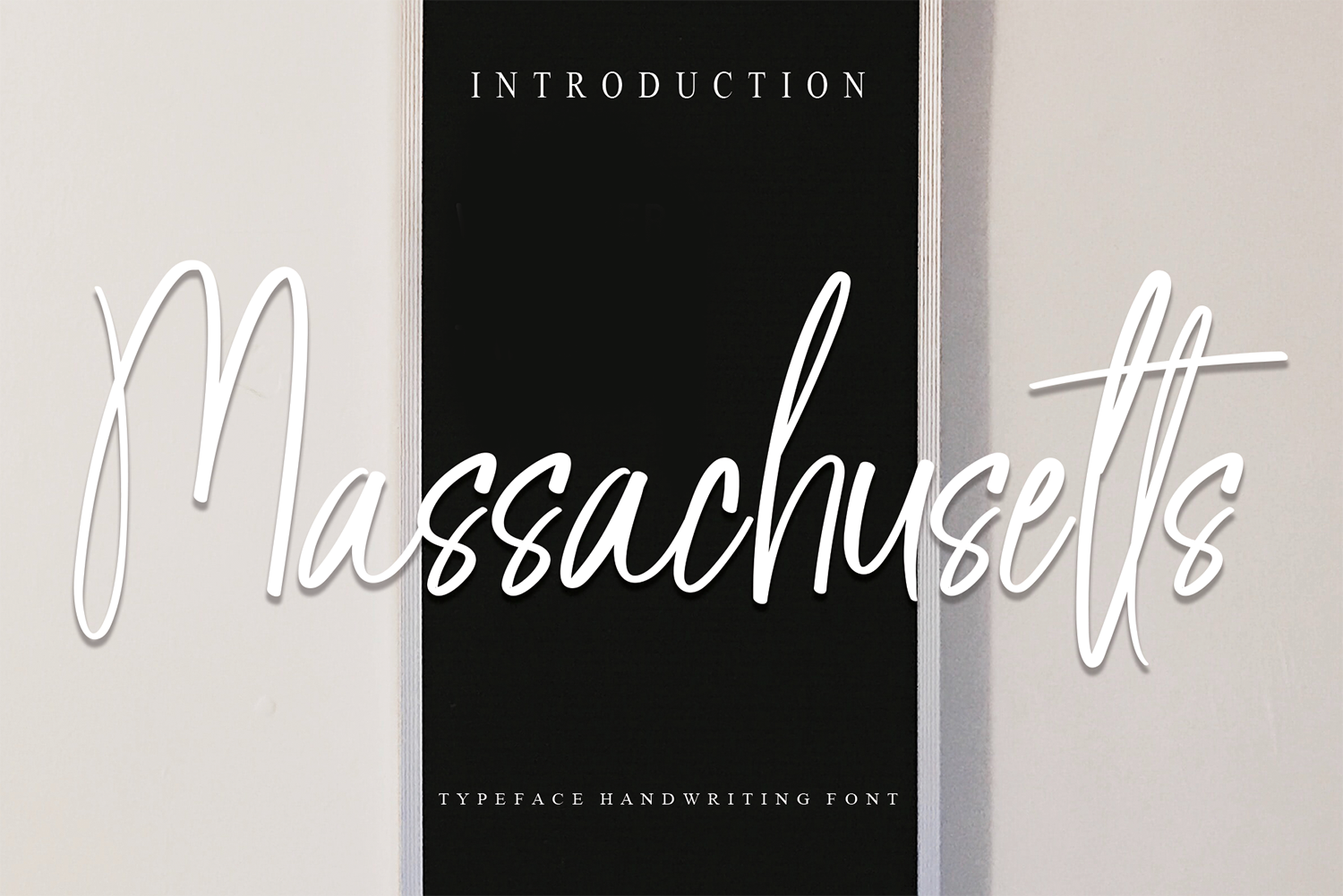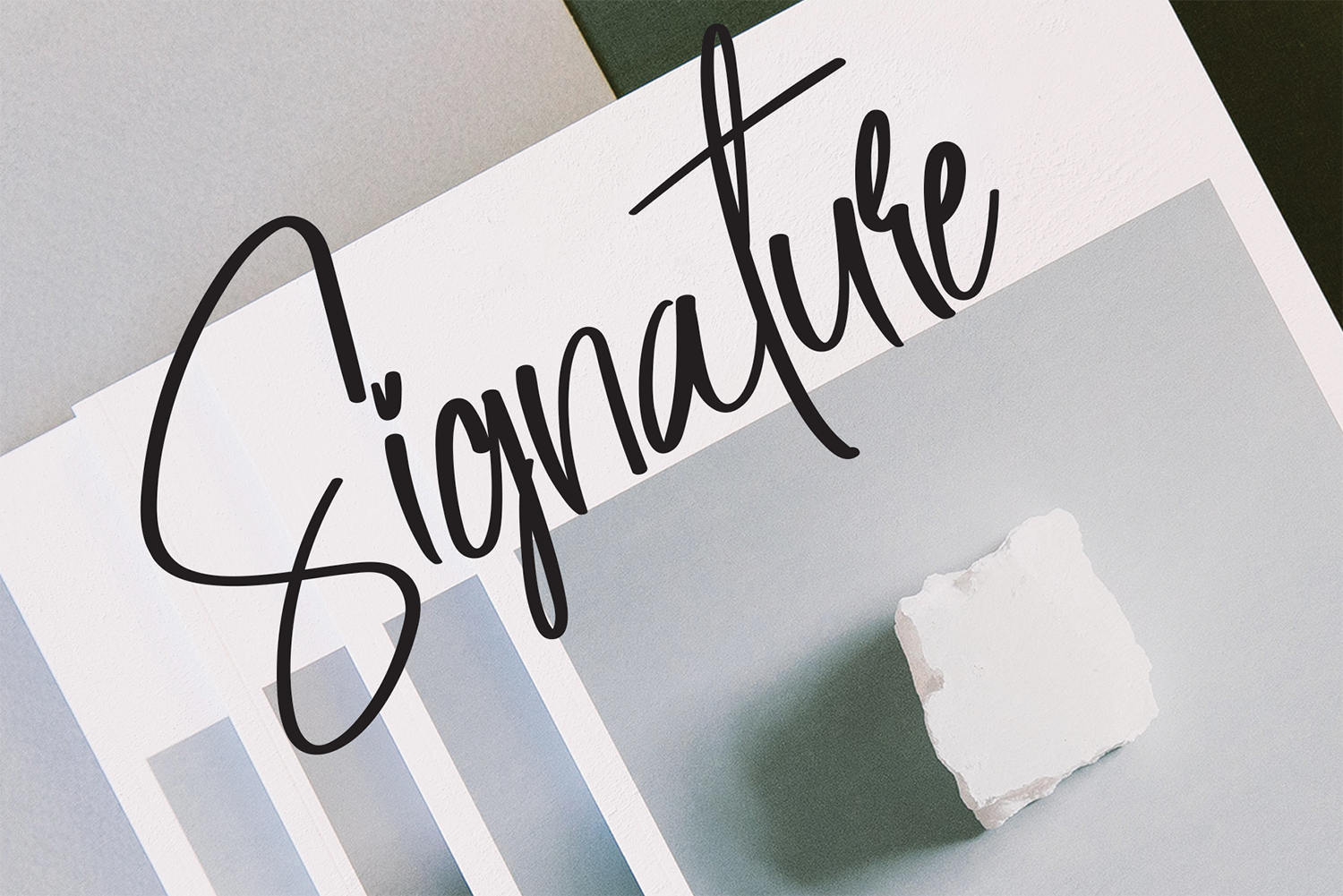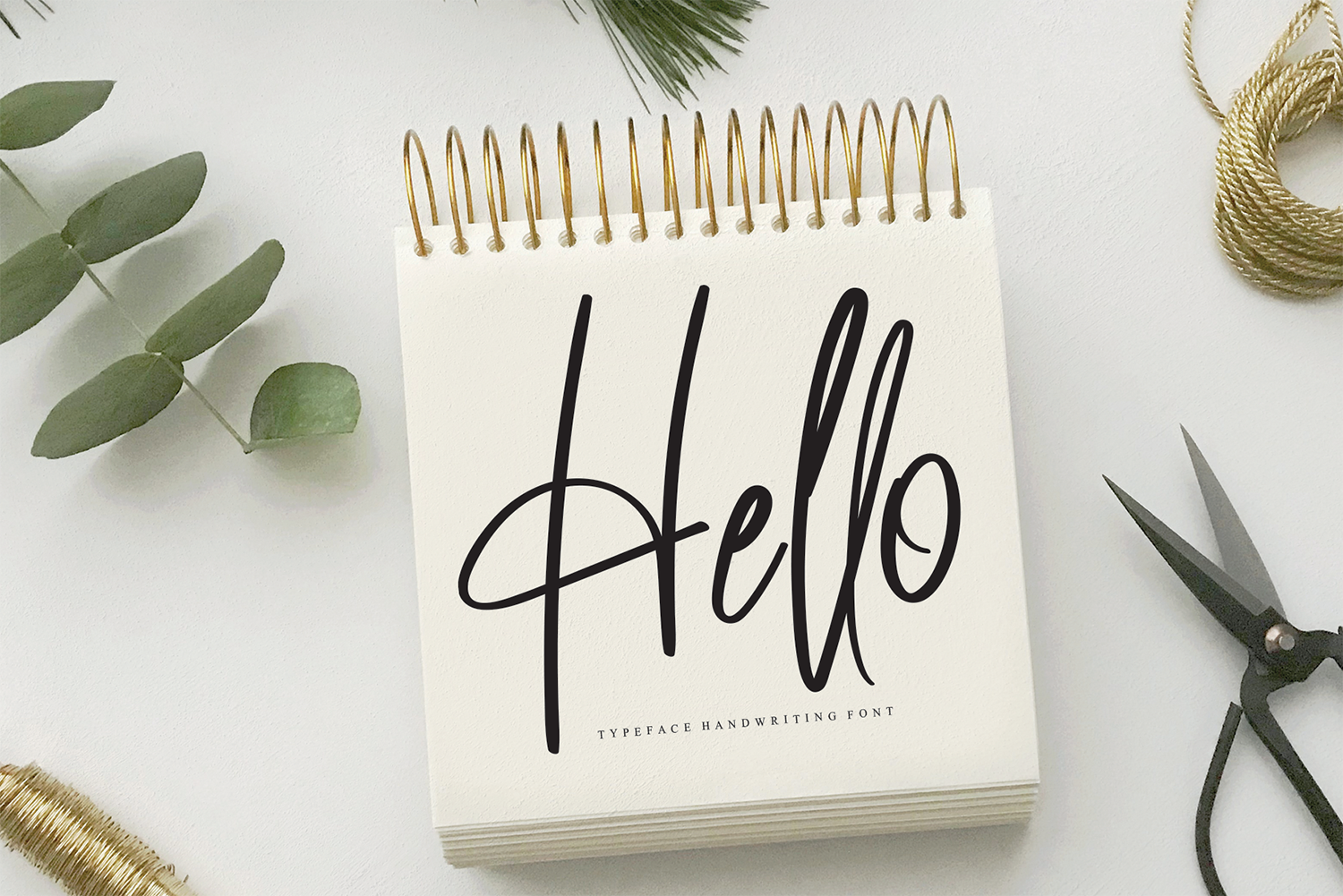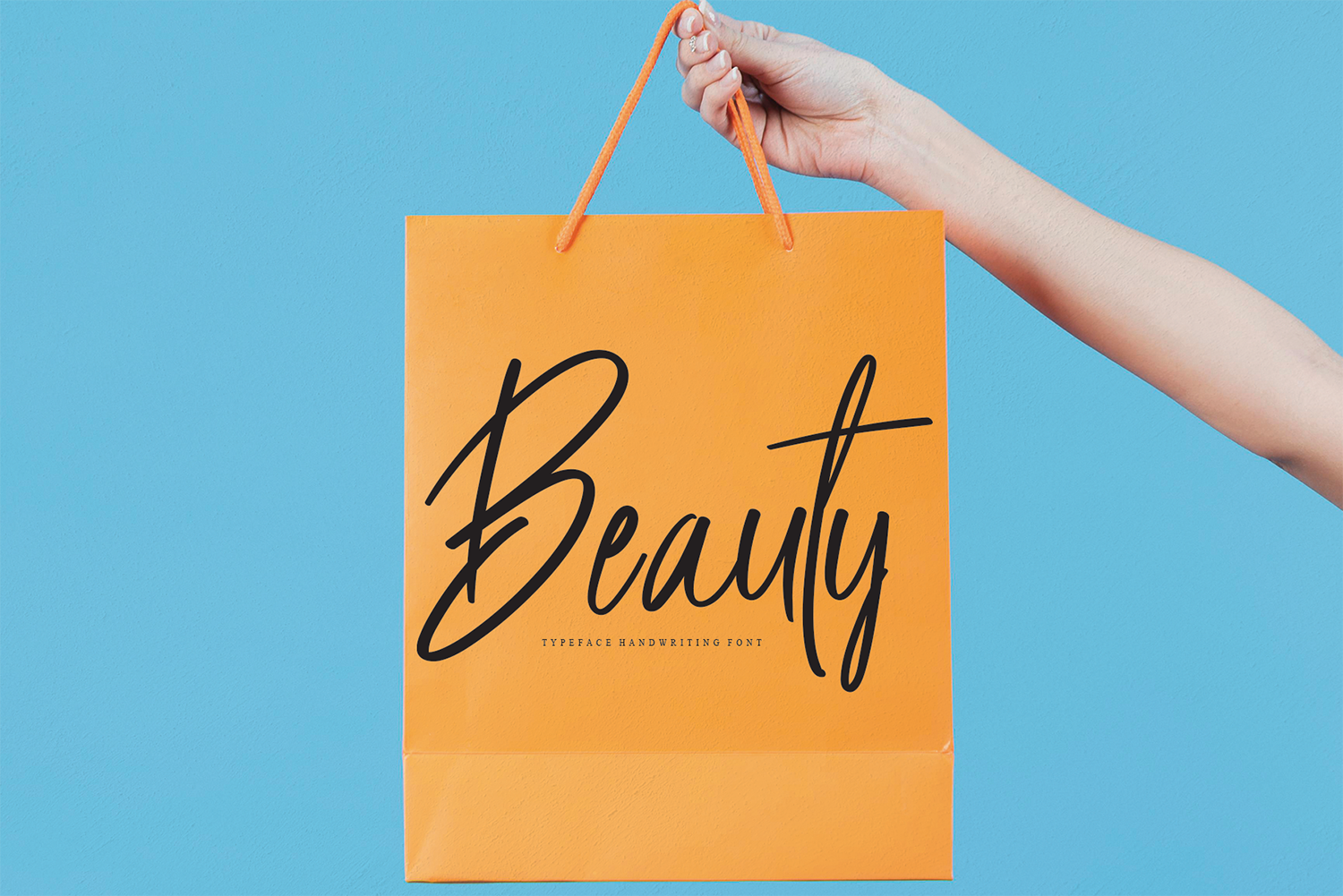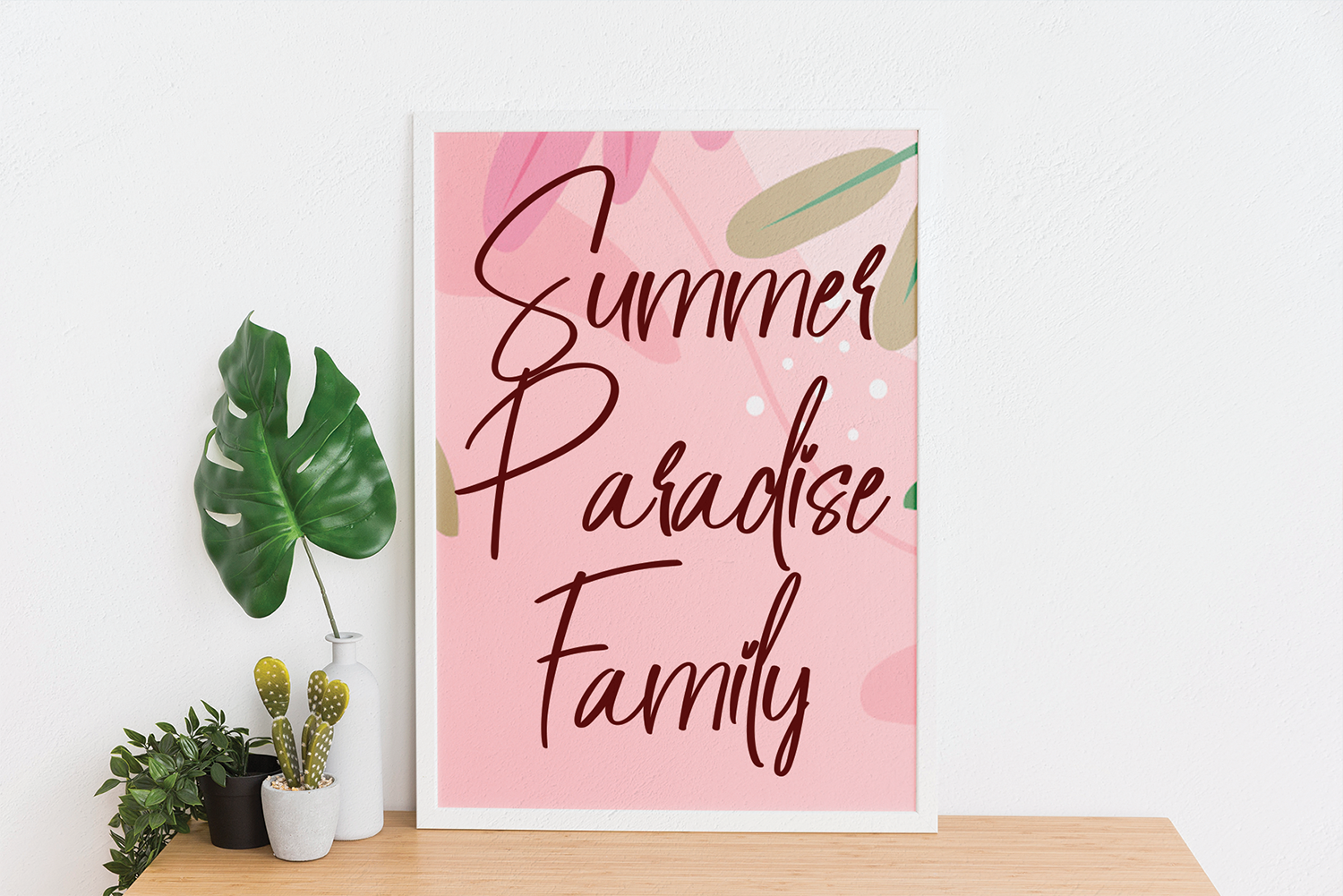
Massachusetts Free Font
Massachusetts Free Font is a refined script font. This font is neatly crafted and highly detailed. Whatever the topic, this font will be a wonderful asset to your font library, as it has the potential to enhance any creation. This free typeface was designed by a talented Scratchones Creative. If you like it don’t forget to check out the full version.